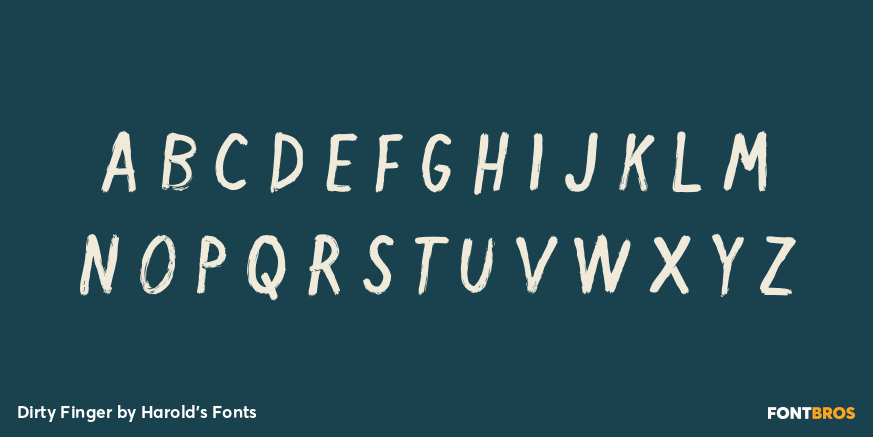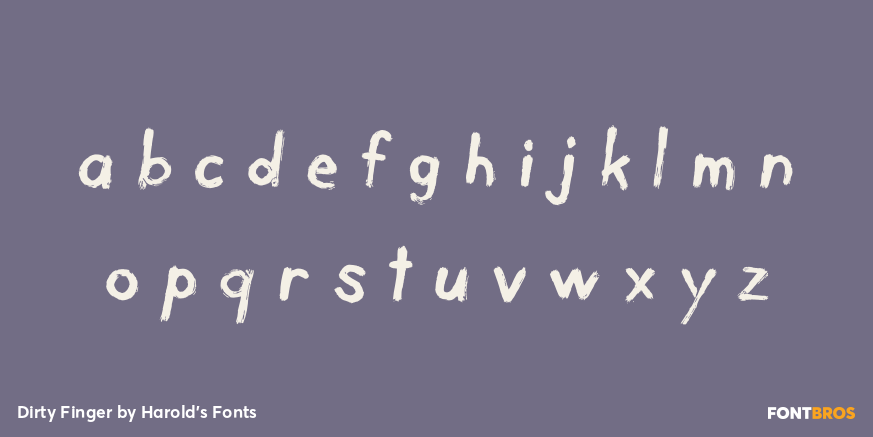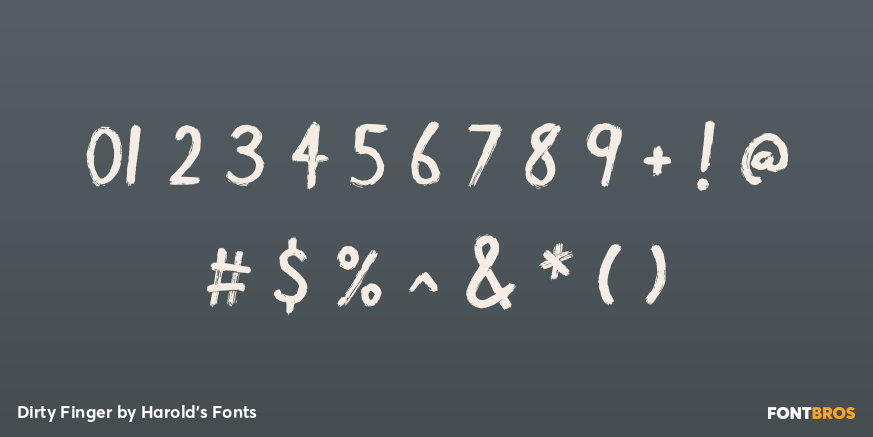
Dirty Finger
Font Family by Harold's Fonts
DIRTY FINGER is a deceptively simple font, based on my own hand lettering. It was begun by inking a plexiglas plate, then drawing the letters backwards into the ink with my finger and a rag, the same way I draw my monoprints. Then I printed, scanned, reversed, and flipped it to make what you see here.